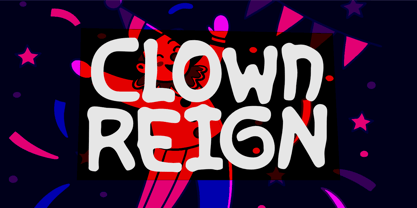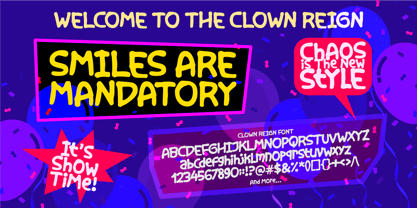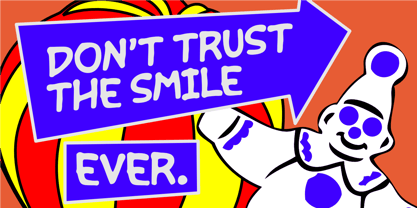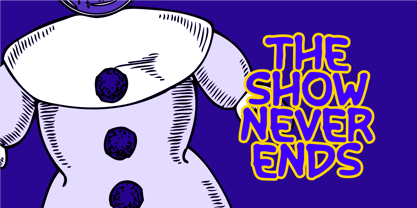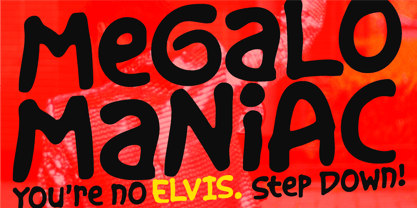
Clown Reign
by Epiclinez
The Clown Reign Font Family was designed by Aldy Sidik and published by Epiclinez. Clown Reign contains 1 styles. More about this family
Clown Reign is a bold, playful display font bursting with chaotic energy, quirky charm, and a touch of mischievous madness. With its chunky shapes, rounded edges, and hand-drawn feel, this typeface brings a lively, cartoon-inspired personality to every letter. Designed to stand out, Clown Reign features bouncy, irregular forms that feel fun, loud, and full of attitude—perfect for designs that don’t take themselves too seriously. Whether you're creating kids-themed projects or eye-catching thumbnails, this font delivers immediate visual impact. From cheerful to slightly unhinged, Clown Reign walks the line between fun and wild, making it incredibly versatile for both lighthearted and edgy creative work.
Designers: Aldy Sidik
Foundry: Epiclinez